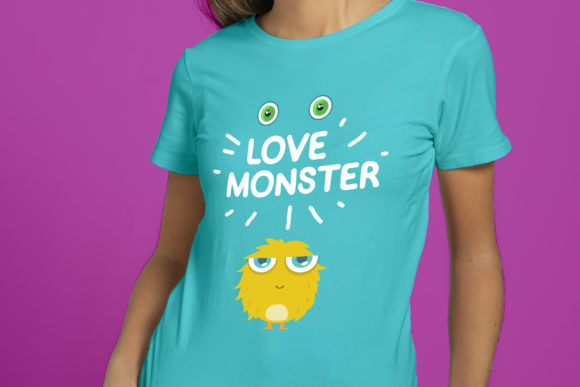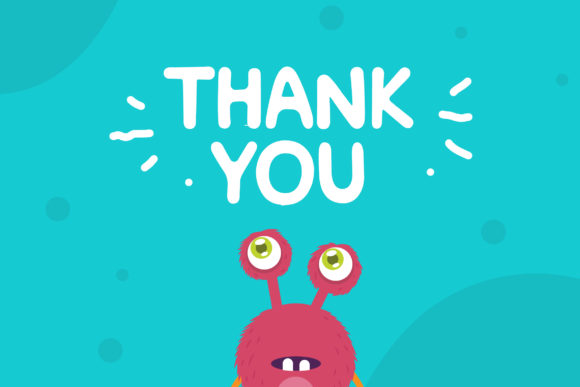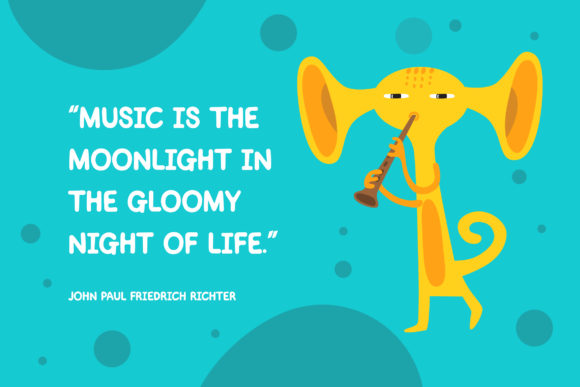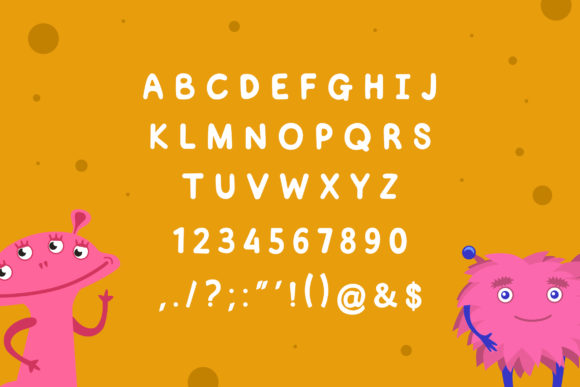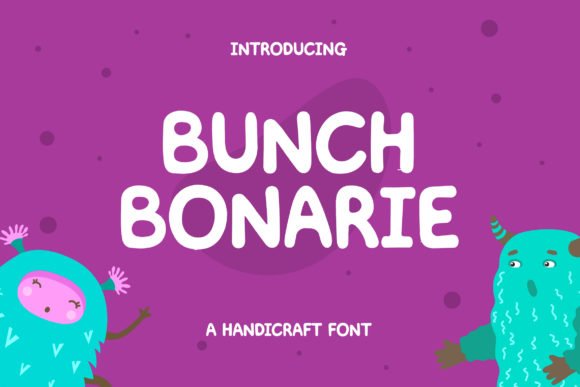
Discover the Quirky Charm of Bunch Bonarie Font
Have you ever found yourself staring at a blank canvas, searching for the perfect spark to ignite your creative project? For many designers, this is a familiar moment of frustration and excitement. The search for that one special element can be a challenge, but what if I told you that you’ve been searching for it in all the wrong places? Look no further than the delightful world of display fonts, where you’ll find the Bunch Bonarie Font waiting to bring your designs to life.
This charming font is more than just a pretty face – it’s a versatile tool that can add a playful touch to any project, from cartoon-inspired artwork to children’s games and more. Whether you’re a seasoned designer or just starting out, the Bunch Bonarie Font is a valuable addition to your toolkit, offering endless possibilities for creative expression.
Bunch Bonarie Font Key Features
- Font Family: Bunch Bonarie
- Unique Characteristics:
- Unique letterforms and ligatures
Bunch Bonarie Font Review
I recently had the chance to work with the Bunch Bonarie font, and I must say it’s an interesting choice for typography enthusiasts. ✨ One of the things that works well with this font is its quirky, handwritten feel. It’s perfect for adding a touch of personality to your designs, especially for creative projects like menus, invitations, or social media graphics.
Another advantage of the Bunch Bonarie font is its excellent legibility, even at smaller font sizes. It’s a great choice for body text or short paragraphs where readability is crucial. Additionally, the font comes in a range of weights, from light to bold, which provides flexibility when it comes to emphasizing certain text.
- ⚠️ Limited language support: The Bunch Bonarie font may not be suitable for projects that require complex linguistic support, as it’s primarily designed for Latin-based languages.
- ⚠️ Not ideal for large blocks of text: While the font is legible at smaller sizes, it may become overwhelming when used for extended passages of text.
Overall, I think the Bunch Bonarie font is a great choice for designers looking to add a touch of whimsy to their projects. With its unique feel and excellent legibility, it’s a versatile font that can be used in a variety of contexts. However, it’s essential to consider the limitations mentioned above to ensure it’s the right fit for your specific project.
The Bunch Bonarie font is ideal for use in creative and artistic designs, such as:
– Print and digital advertising
– Packaging and label design